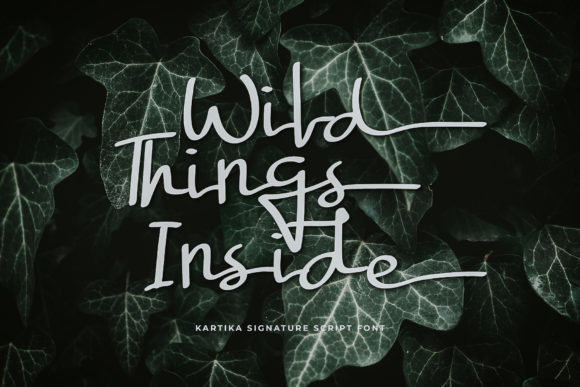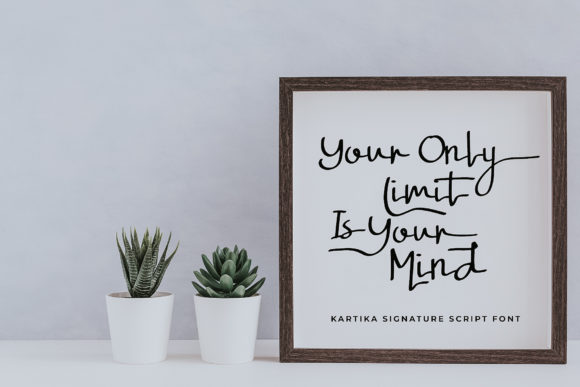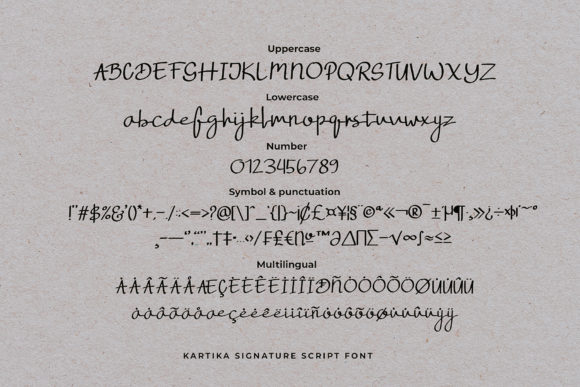
Introduction to Kartika Font
Have you ever been in the midst of a creative project, desperately searching for the perfect font to bring your vision to life? I’m sure many designers can relate to that feeling of frustration, scrolling through countless options, hoping to stumble upon the one that sets your design apart. That’s where the Kartika Font comes in – a sweet and friendly handwritten font that’s sure to become your new go-to design resource.
With its natural and unique style, the Kartika Font is incredibly versatile and fitting for a wide range of creative projects. Whether you’re working on a design that requires a touch of elegance or a dash of playfulness, this font is sure to deliver. Plus, its PUA encoding makes it easy to access all of the glyphs and swashes, giving you complete control over your design.
Key Features of Kartika Font
- High-quality font design suitable for various creative projects, including logos, branding, and graphics.
- Transparency is not a feature of this font as it is an opaque font.
- Designed with a unique aesthetic, making it an excellent design resource for artists and designers looking to add a distinctive touch to their work.
- Supports a wide range of languages, making it a versatile choice for international creative projects.
Honest Review: Kartika Font
As a designer, I’m always on the lookout for high-quality fonts that can elevate my creative projects. Recently, I came across the Kartika Font, and I’m excited to share my honest review.
- Unique and elegant design: The Kartika Font has a beautiful, hand-drawn feel that adds a touch of sophistication to any design project.
- High quality: The font is crisp and clear, making it perfect for both digital and print applications.
- Limited character set: The Kartika Font only includes a limited set of characters, which may not be suitable for projects that require a wide range of languages or special characters.
- No transparent background: While the font is beautiful, it doesn’t include a transparent background option, which may limit its use in certain design scenarios.
Overall, I’m impressed with the Kartika Font, and I think it’s a great addition to any designer’s toolkit. While it may have some limitations, its unique design and high quality make it a valuable resource for creative projects.
The Kartika Font is a high-quality design resource ideal for creative projects that require a unique and sophisticated look. With its transparent background, it’s perfect for adding an extra layer of depth to your designs.
Tips for Getting the Most Out of Kartika Font
To get the most out of the Kartika Font, try pairing it with other high-quality design resources, such as images or graphics. Experiment with different font sizes and styles to create a unique and eye-catching design.
The Kartika Font is ideal for a variety of creative projects, including logos, brochures, and business cards. Its unique design makes it perfect for adding a touch of sophistication to any design.